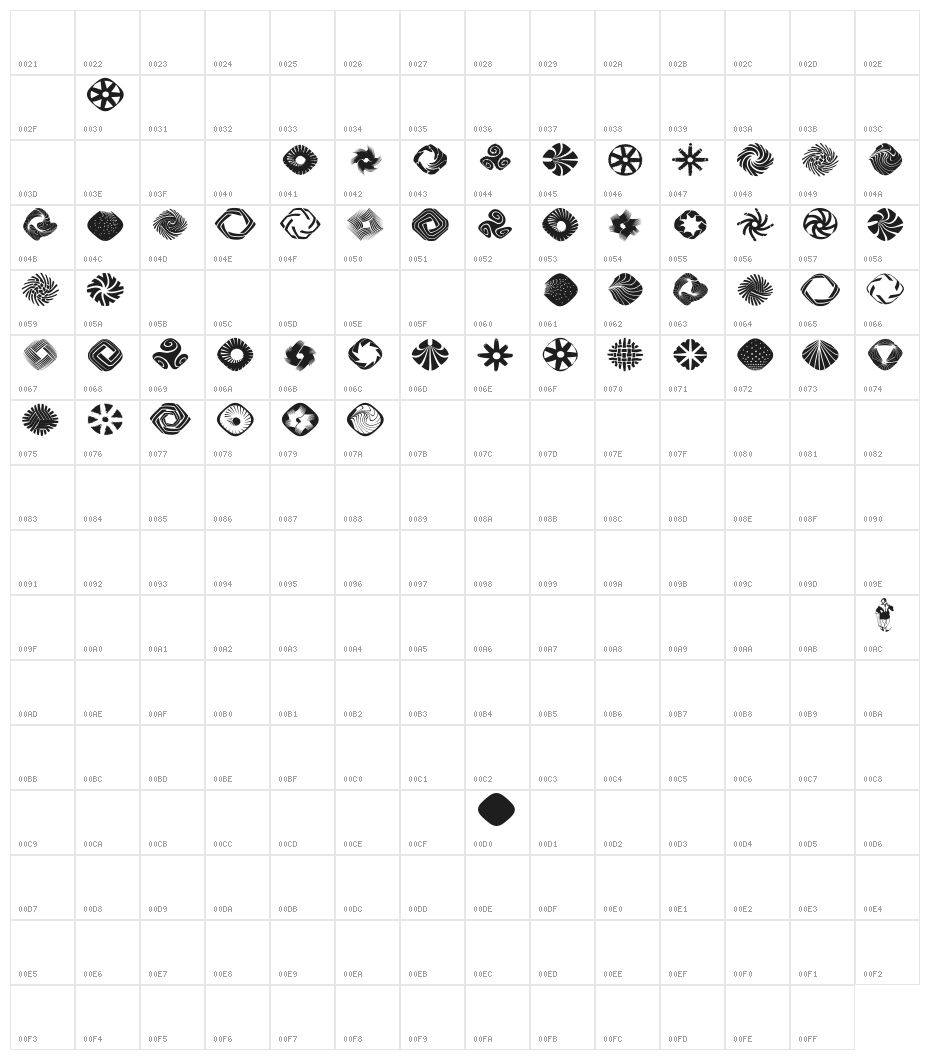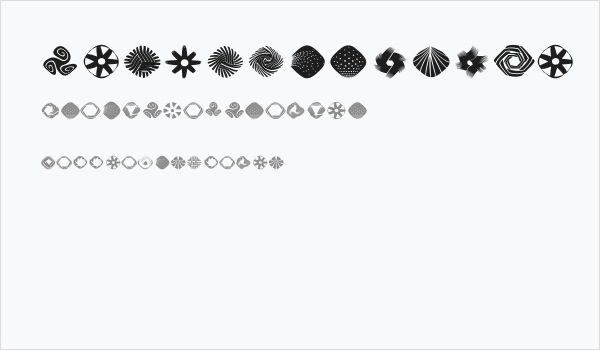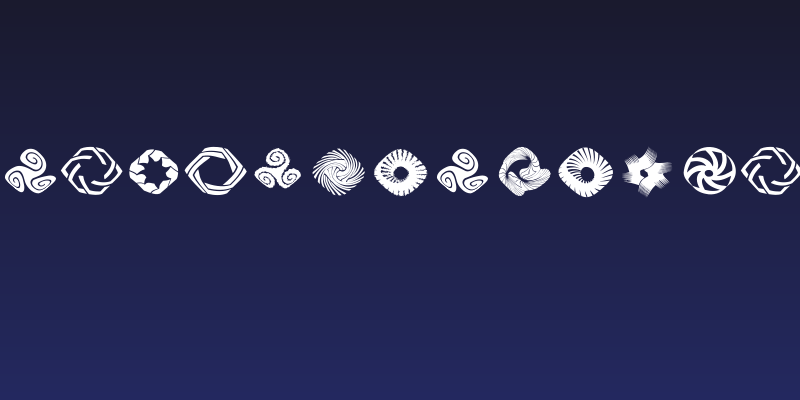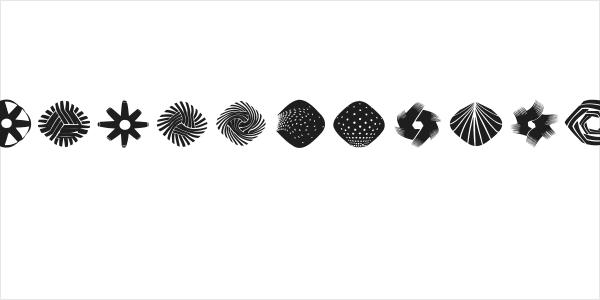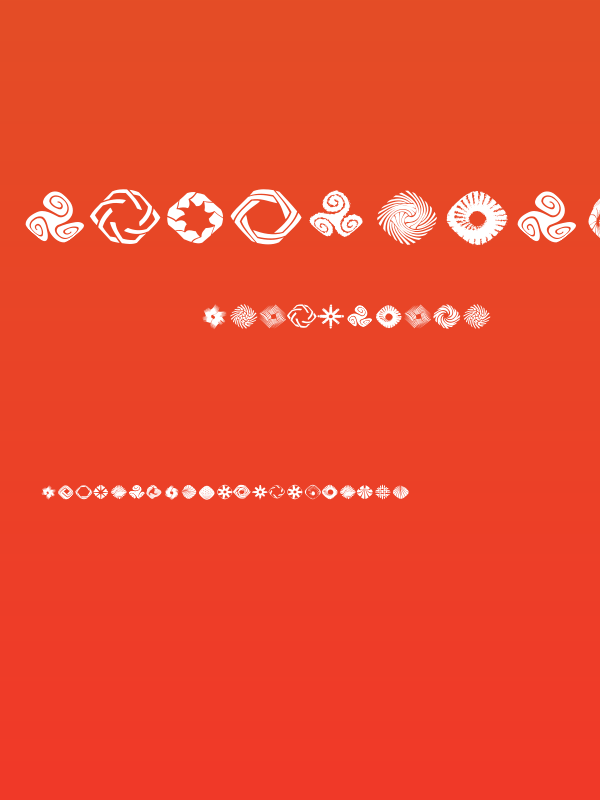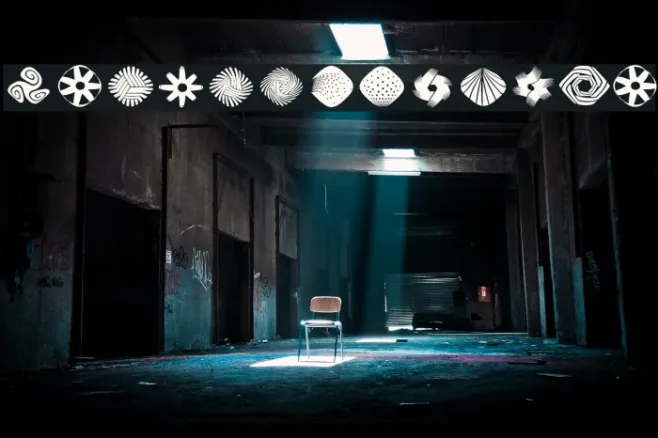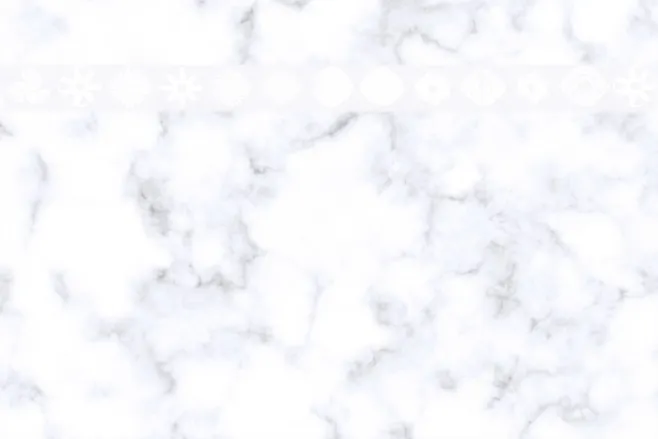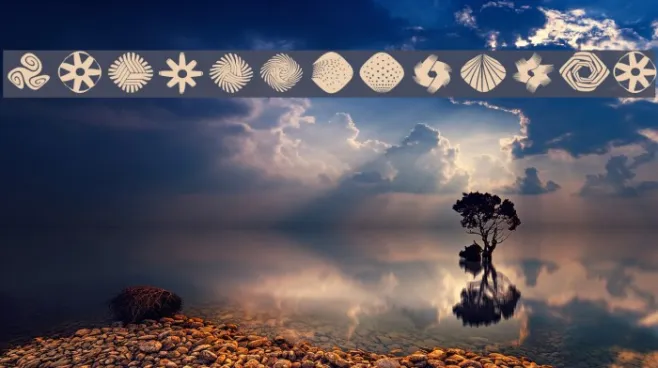
RoundMarksTwo Font
RoundMarksTwo Description
A collection of abstract, geometric, and organic round marks with varying line weights, patterns, and visual motifs. Each symbol is unique, featuring swirls, spokes, dots, and intricate shapes, all contained within a roughly circular or rounded-square boundary.
| Overall Style | Decorative, Modern, Abstract |
| Use Case | Logos, Icons, Decorative graphics, Branding |
| Proposed Projects | Branding, logo design, icons, decorative elements, packaging, digital interfaces, posters. |